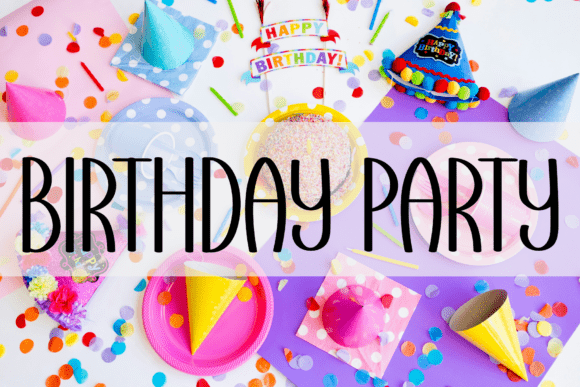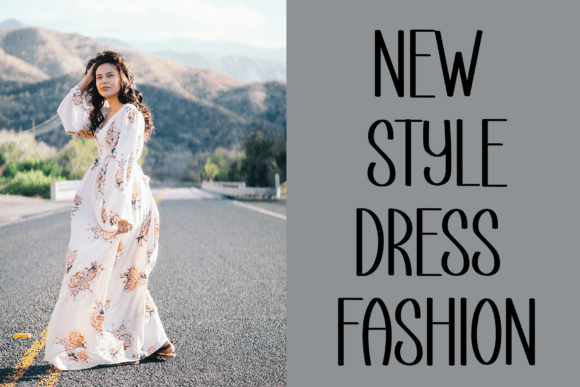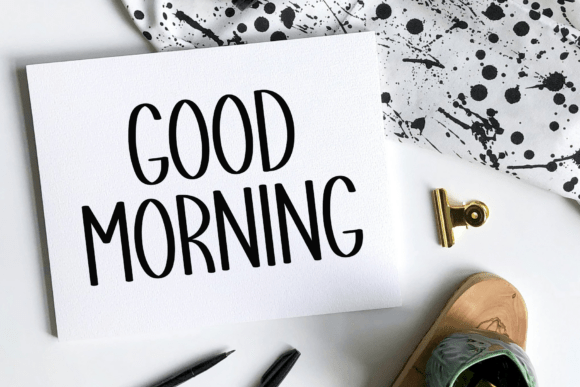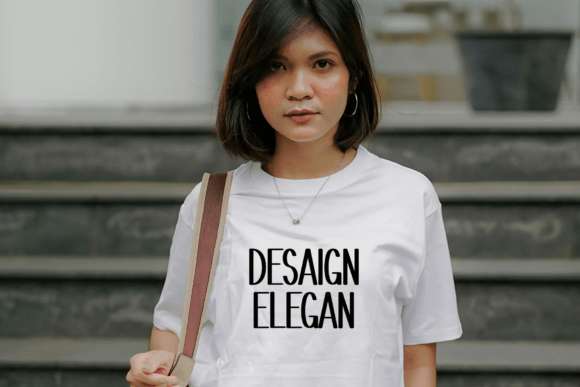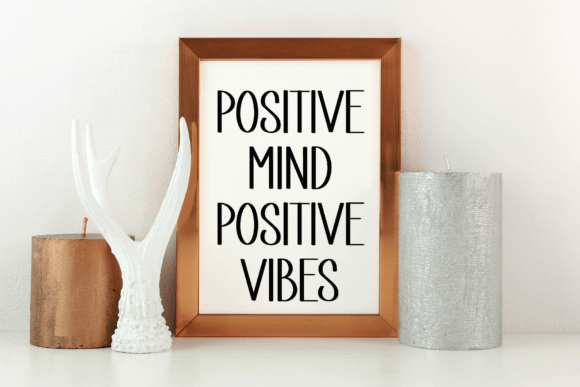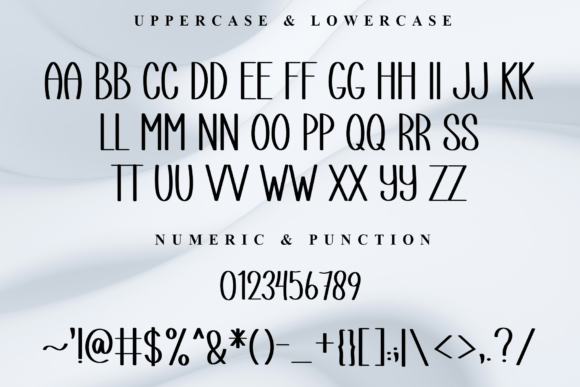
The Perfect Recipe for Creative Success
Have you ever stared at a blank canvas, struggling to find the perfect font to bring your creative vision to life? I know I have. That’s why I’m excited to introduce you to the Bakery Delicious Font, a casual and creative typeface that’s sure to add a touch of warmth and friendliness to your designs.
This charming font is perfect for personal projects, invitations, and social media graphics where you want to create a relaxed and approachable feel. Its round, playful strokes and hand-drawn aesthetic make it a unique addition to any design. As a designer, you’ll appreciate the Bakery Delicious Font’s versatility and ease of use, thanks to its standard PUA Encoded glyphs that work seamlessly in popular design applications.
Bakery Delicious Font Key Features
- Unique Characteristics: Bakery Delicious Font features a unique blend of modern and traditional design elements, making it perfect for bakery, food, and lifestyle branding.
- Font Style: The font comes in a friendly, approachable style that is perfect for creating a welcoming and inviting atmosphere in bakery and food-related businesses.
Bakery Delicious Font Review
I was excited to dive into the Bakery Delicious Font, and overall, I think it’s a solid choice for a bakery or food-related project. Here’s what I like about it:
- ✨ The font’s playfulness and charm are perfect for a bakery or food brand. It’s got a warm and inviting feel that’s sure to make customers feel at ease.
- ✨ The font’s unique style and letterforms are well-designed and visually appealing. The rounded edges and subtle flourishes add a touch of whimsy and personality to the font.
- ✨ The font is highly legible, even at smaller sizes, making it suitable for menus, packaging, and other small-scale applications.
- ⚠️ The font may be a bit too playful for more serious or formal projects. It’s best suited for brands that want to convey a lighthearted or approachable tone.
- ⚠️ Some users may find the font’s letterforms a bit too ornate or fussy, which can be distracting in certain contexts.
Overall, I think the Bakery Delicious Font is a great choice for the right project. While it may not be the most versatile font, it’s a fun and engaging option that’s sure to add some personality to your brand. Just be sure to use it in contexts where its playfulness will shine through!
The Bakery Delicious Font is ideal for:
– Bakery and food-related businesses
– Restaurant and cafe menus
– Food blogs and recipes
– Social media posts and ads